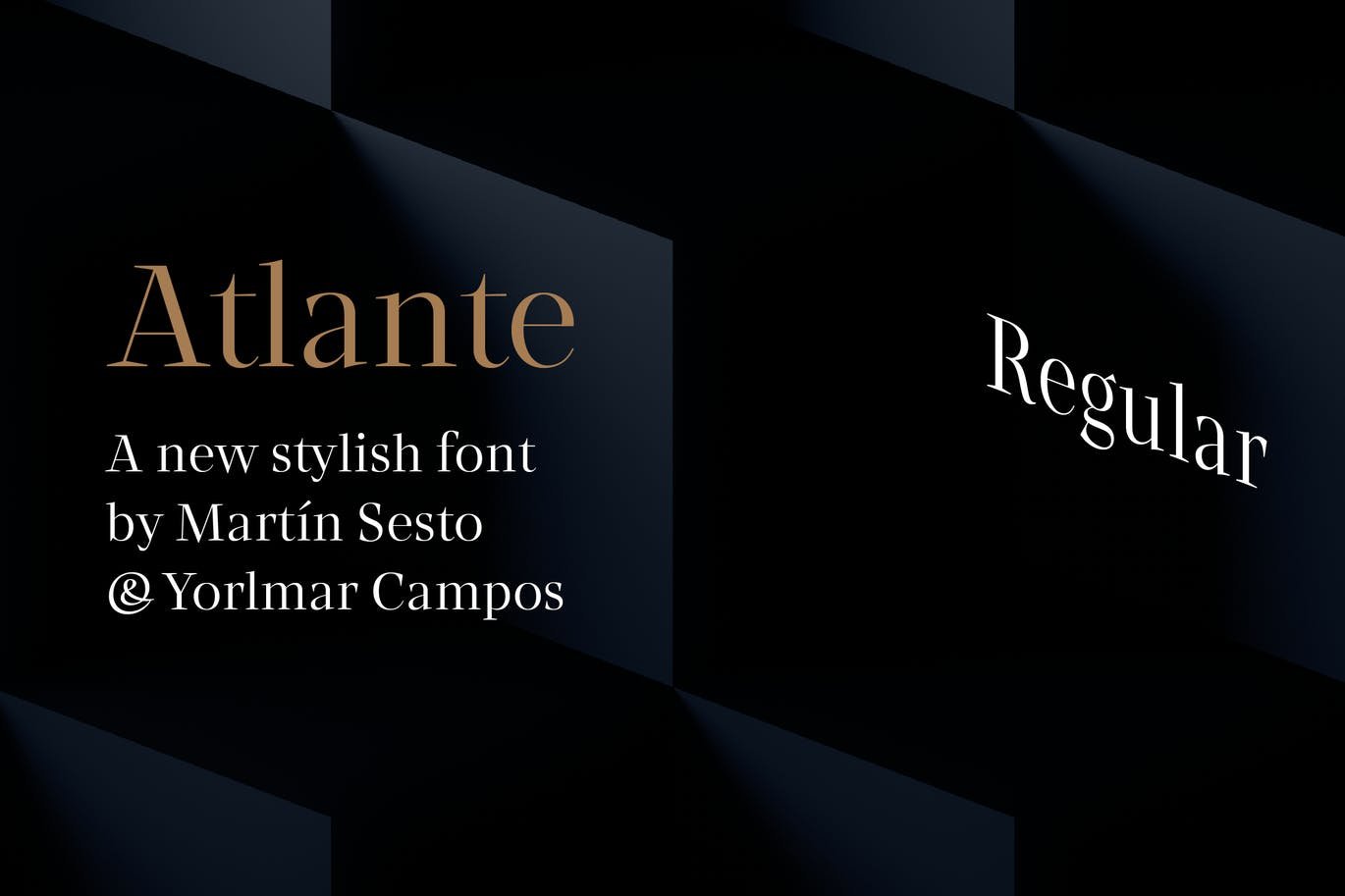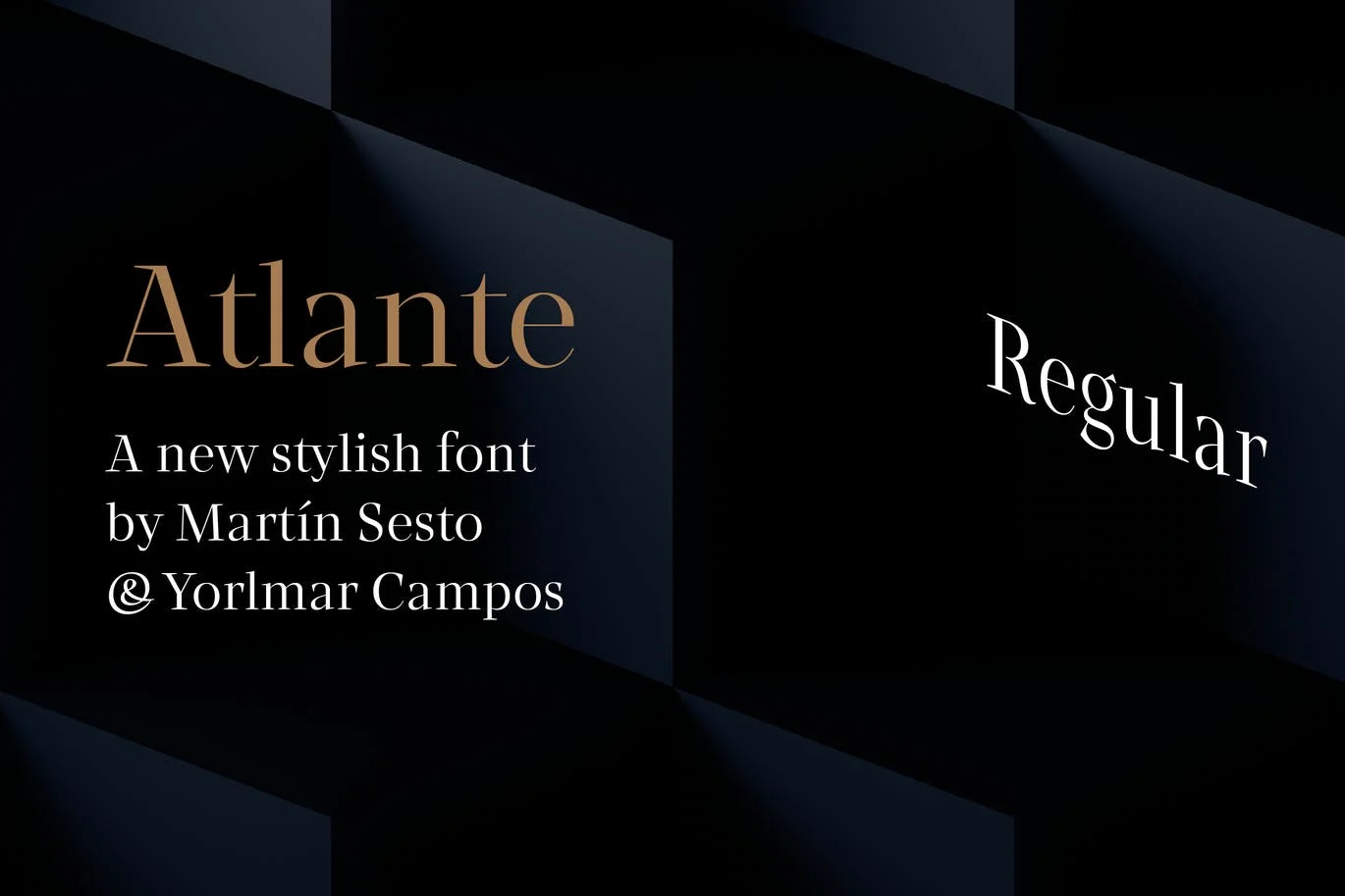
RNS Atlante Regular Font
RNS Atlante Regular Font is an elegant high-contrast typeface designed for editorial use and inspired by calligraphy used in sixteen and seventeen-century cartography.